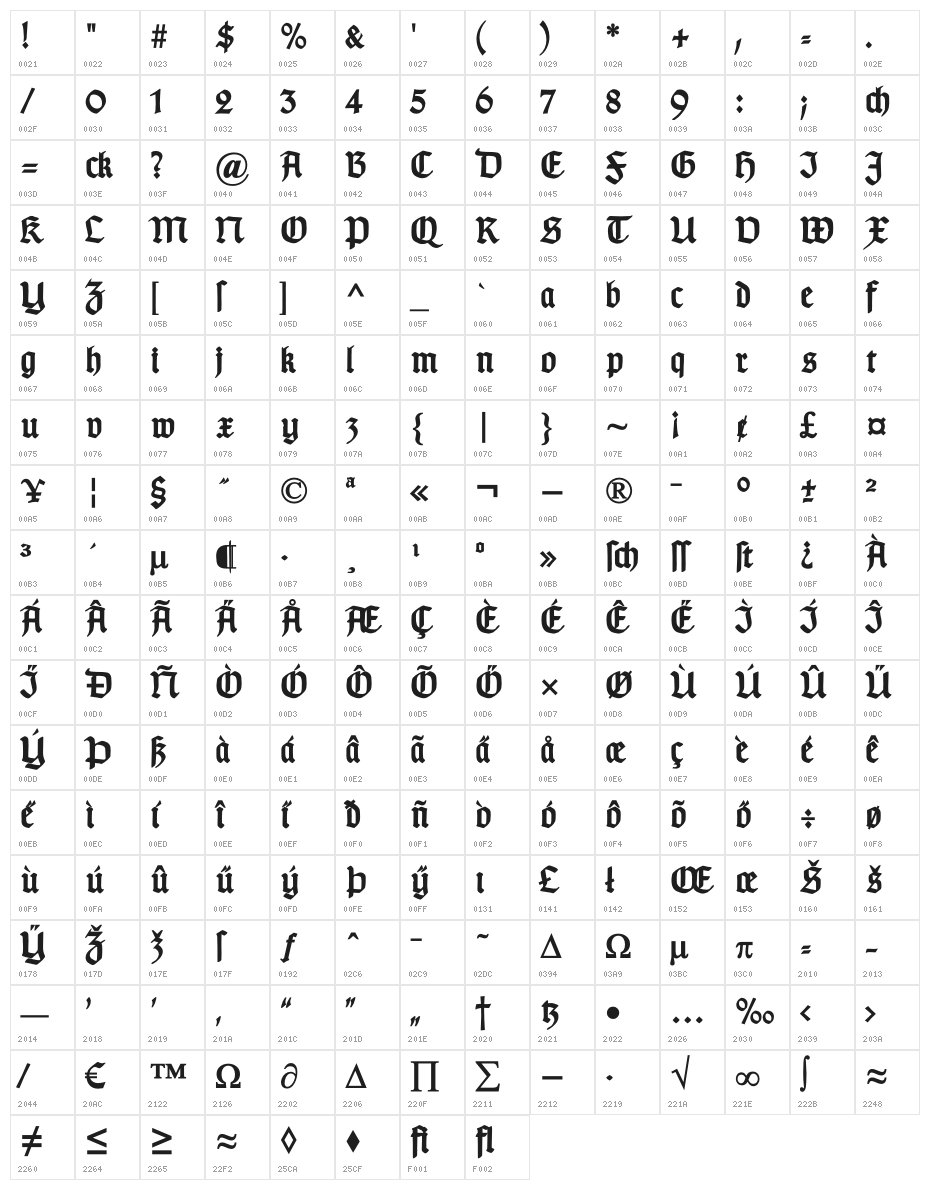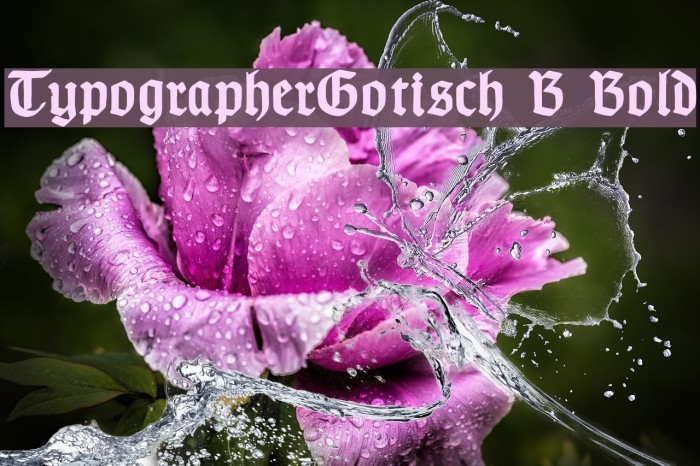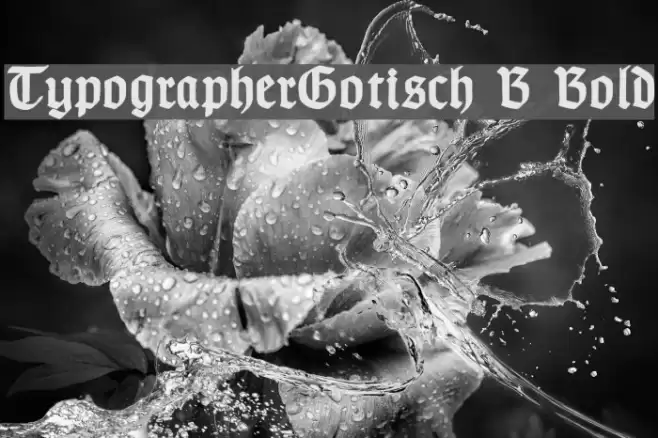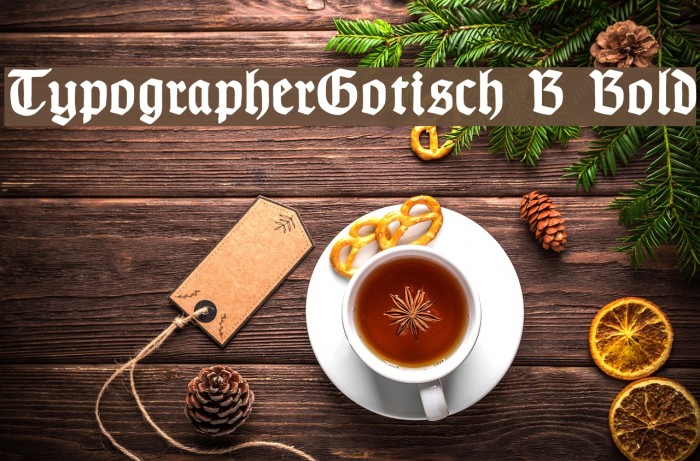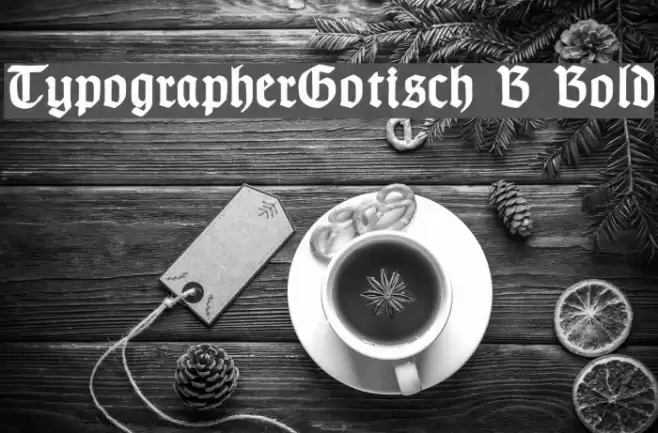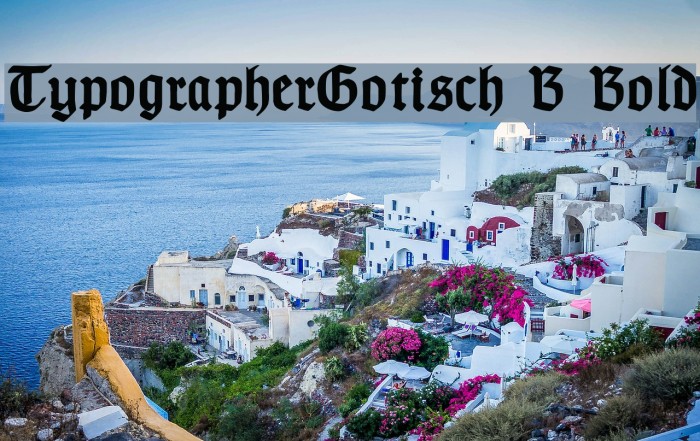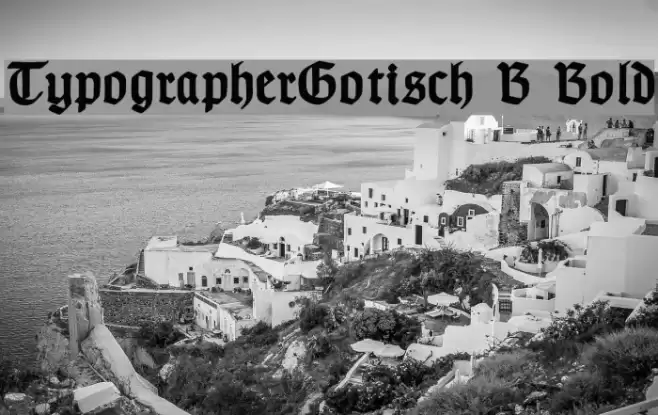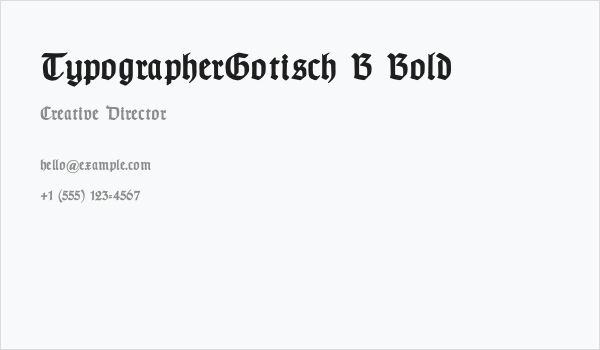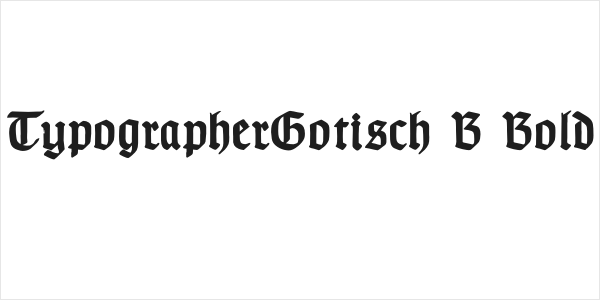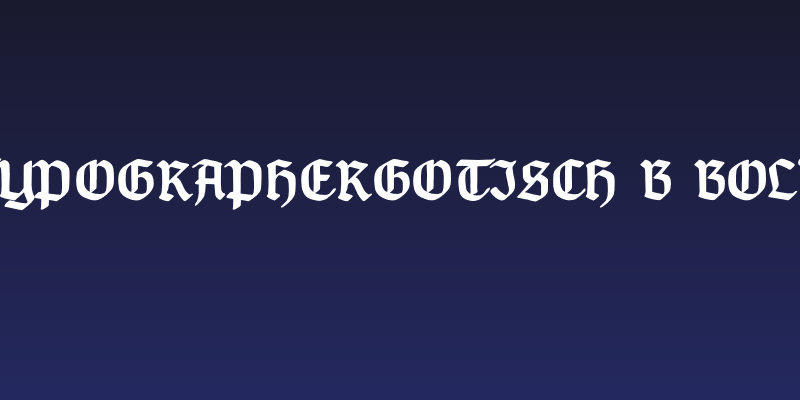
TypographerGotisch B Bold Font
TypographerGotisch B Bold Description
This font embodies the traditional elegance of blackletter typography, characterized by its intricate and ornate design. The letters feature sharp, angular strokes with a distinct medieval flair, reminiscent of Gothic script. The uppercase and lowercase letters maintain a consistent style, with bold, dramatic lines that create a striking visual impact. The numerals and special characters are crafted with the same attention to detail, ensuring a cohesive appearance across all glyphs. This font's historical aesthetic makes it ideal for projects that require a touch of classic sophistication and a nod to the past.
| Proposed Projects | Ideal for historical documents, certificates, book covers, or any design requiring a classic, medieval touch. |